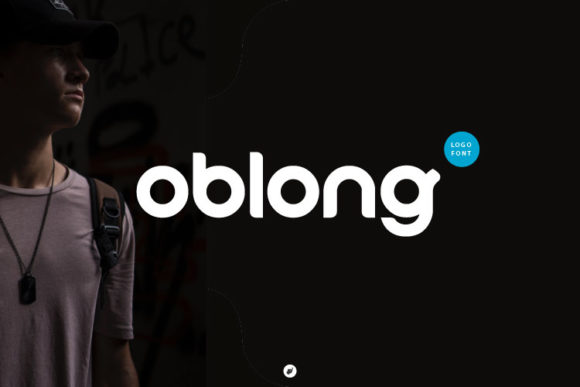
Oblong Display Font Brings Handwritten Charm to Editorial Design
There’s a quiet magic in the moment when you open a design project and know exactly which typeface will set the tone. Recently, I was tasked with redesigning the cover of a small digital publication about creative living—something that needed warmth, authenticity, and just enough personality to stand out. That’s when I reached for Oblong, a display font that effortlessly marries the organic flow of a brush pen with the crispness of a pencil stroke. It didn’t just fit; it felt like the perfect voice for the content itself.
Oblong for Wedding Guides and Personalized Printables
In editorial projects where mood matters more than strict readability, Oblong shines. Its blend of soft curves and slightly textured lines gives it an endearing, hand-crafted feel that works beautifully for wedding guides, lifestyle printables, or any content aiming for a personal touch. When I tested it on a sample wedding invitation layout, the font added a sense of intimacy and elegance without being over the top. The subtle imperfections mimic real handwriting, making it feel less like a machine-made asset and more like a message written by someone you trust.
For creators who sell digital products—like planners, worksheets, or greeting cards—Oblong is a great choice for decorative accents and titles. It doesn’t demand attention but holds it gently, allowing the reader to connect emotionally with the design. This kind of font is invaluable for building a brand identity that feels authentic and approachable.
Oblong in Lifestyle Blogs and Newsletter Headers
I also experimented with using Oblong as a header font for a blog post about home decor. The title immediately felt more engaging than the standard sans serif options I usually reach for. Because it’s a display font, it performs best at larger sizes and isn’t meant for long paragraphs, but for headlines and pull quotes, it adds a layer of charm that makes the content feel curated and intentional.
In newsletter headers, Oblong brought a unique energy to the layout. It helped differentiate the publication from others in the same niche while maintaining a clean, modern structure. Paired with a minimalist sans serif body text, the contrast made the visual hierarchy pop—readers knew instantly where to look and what to expect from the content.
How Oblong Supports Editorial Mood and Brand Identity
One of the most powerful aspects of Oblong is its ability to shape the mood of a publication. Unlike many Fonts that lean heavily into one aesthetic, Oblong balances expressiveness with clarity. It has the playful soul of a brush pen but the grounded rhythm of a pencil, giving it a versatile character that can adapt to different tones within the same project.
For example, in a digital magazine focused on wellness and mindfulness, I used Oblong to open each chapter. The handwritten-like strokes gave a sense of intentionality and care, reinforcing the publication’s mission. In another instance, for a recipe ebook, I paired it with a structured serif font for ingredient lists and instructions. The result was a layout that felt both inviting and reliable—perfect for content that blends creativity with practicality.
Using Oblong in Course PDFs and Coaching Workbooks
If you're creating educational materials or coaching workbooks, Oblong can add a humanizing element to your designs. I used it in a course PDF for a creative writing class and found it worked well for section headings and motivational blurbs between lessons. It helped break up dense reading material without disrupting the flow of learning.
However, it’s important to note that Oblong is not a font for extended reading. While it’s expressive and charming, it lacks the precision needed for body text. Use it sparingly for titles, pull quotes, and decorative elements to maintain readability across platforms like mobile screens and printed worksheets.
Design Assets and Font Pairing Strategies
When working with Display Fonts like Oblong, thoughtful pairing is essential. I’ve found that matching it with a clean, readable serif or sans serif font helps balance the layout and keeps the focus on the content. For a recent printable planner, I paired Oblong with a classic serif font for daily prompts and notes. The combination created a harmonious contrast—personal yet professional, whimsical yet functional.
Also worth considering are the variations included in the Fonts package. Alternates and ligatures allow for subtle customization, helping you avoid repetition in repeated use cases like worksheet headers or social media graphics. Checking file formats and commercial licensing is crucial before integrating Oblong into paid publications, client work, or digital downloads.
Readability Across Platforms and Formats
While Oblong is designed for display purposes, its performance on screen and in print is surprisingly solid. On mobile devices, it maintains legibility at medium sizes if used for short phrases or section titles. In PDF exports, it retains its texture and character, which is especially useful for printables and downloadable resources. However, always test how it looks at smaller sizes—some characters may lose their charm and become harder to read.
Ultimately, Oblong isn’t just a Font—it’s a design decision. And in the world of editorial and content creation, every decision counts.